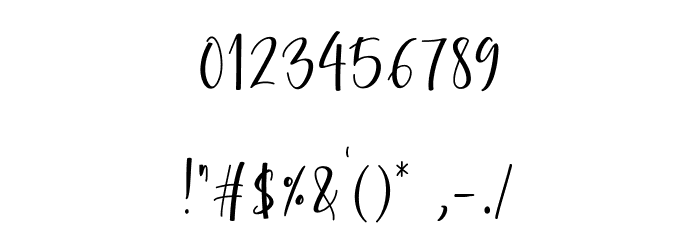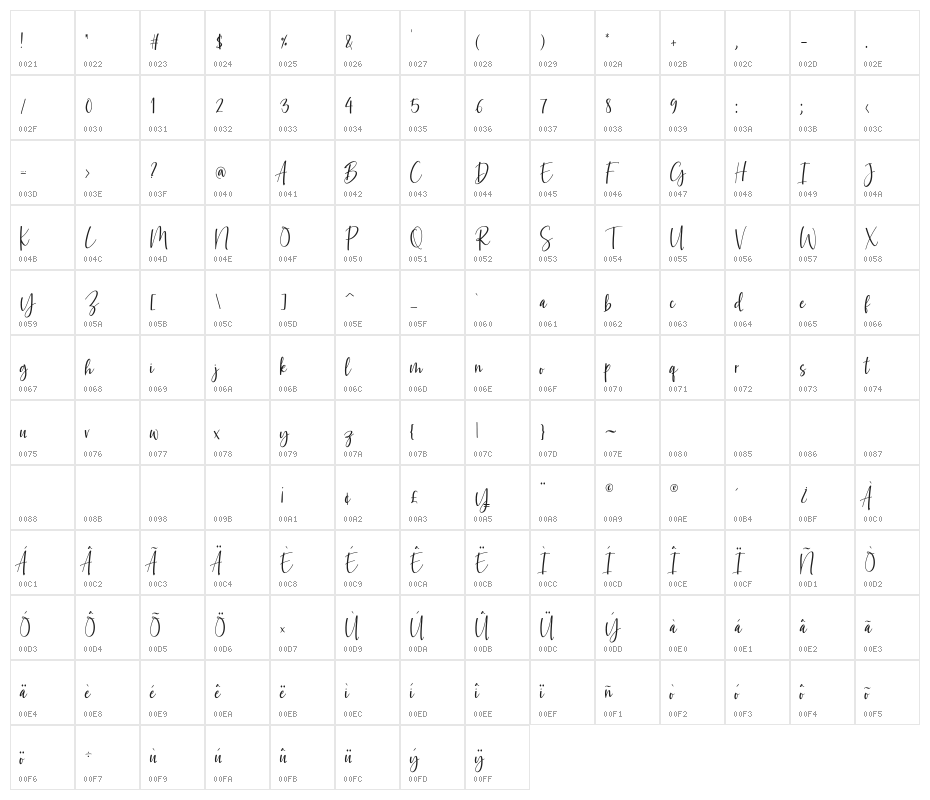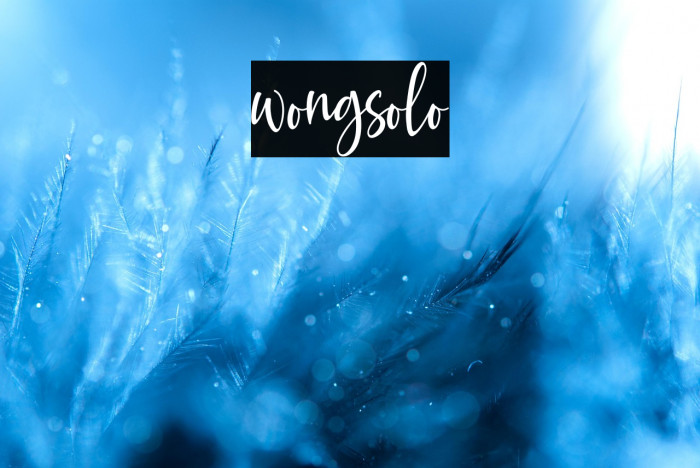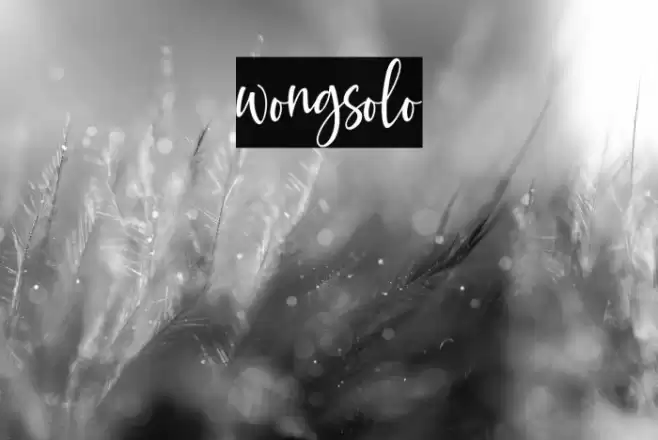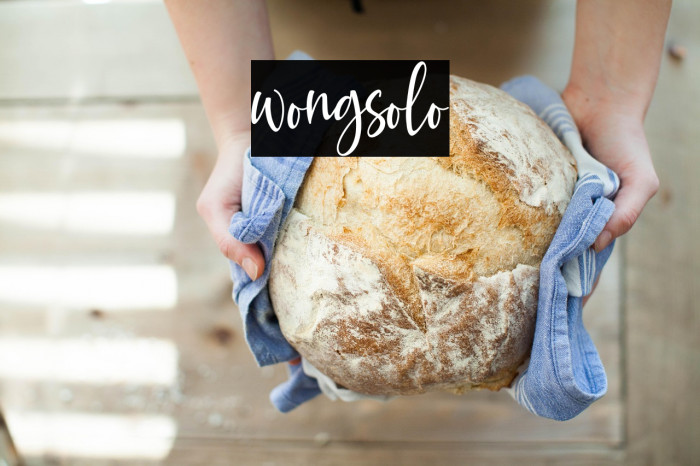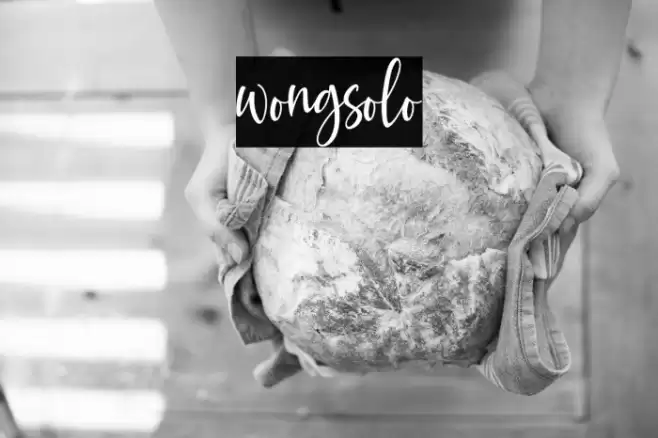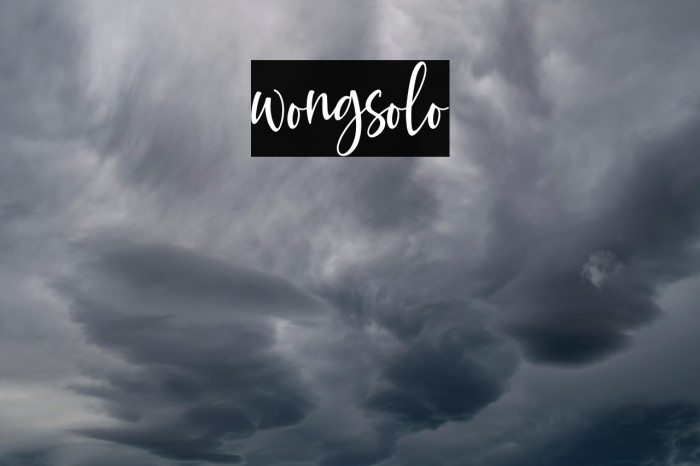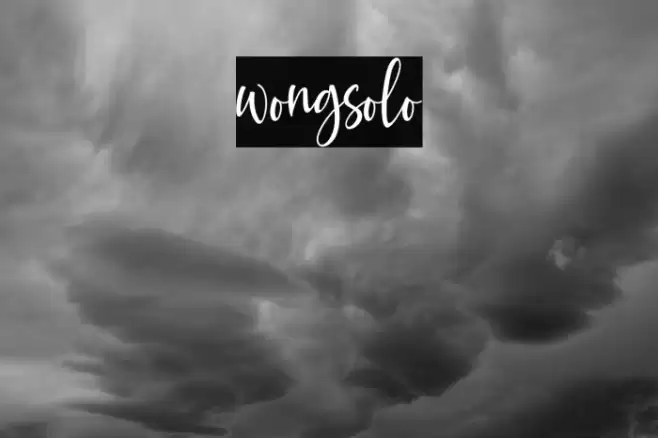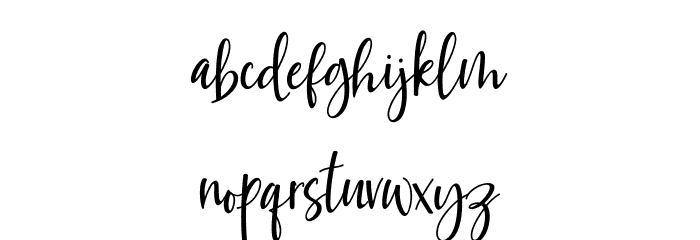
wongsolo Font
wongsolo Description
This font features a lively and expressive handwritten style, characterized by its fluid and dynamic strokes. The uppercase letters are tall and elegant, with a slight slant that adds a sense of movement. The lowercase letters maintain a consistent flow, with some characters exhibiting playful loops and curls. The numerals are well-integrated into the overall design, maintaining the same handwritten aesthetic. Special characters are creatively designed, complementing the font's overall style. The font's organic feel makes it suitable for projects that require a personal touch.
Use CaseLogos, Headlines, Invitations
Proposed ProjectsIdeal for wedding invitations, greeting cards, personal branding, and creative projects that require a personal touch.